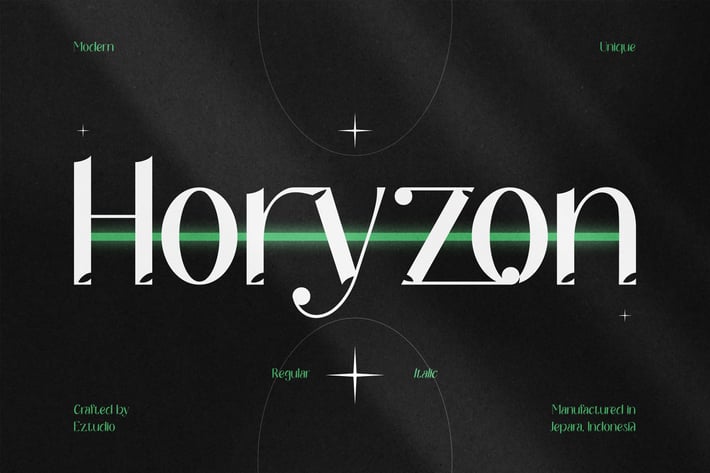
Modern and Unique Font - Horyzon
Horyzon is Modern and Unique font that includes uppercase letters, lowercase letters, numerals, ligatures & punctuation. this font can also be combined with other fonts like serif, script and handwritten. This font is suitable for graphic design needs such as: magazines, poster , branding, apparel, movie headlines etc..
The Horyzon font includes:
Uppercase Letters
Lowercase Letters
Ligatures
Special Characters
Multilingual Glyphs